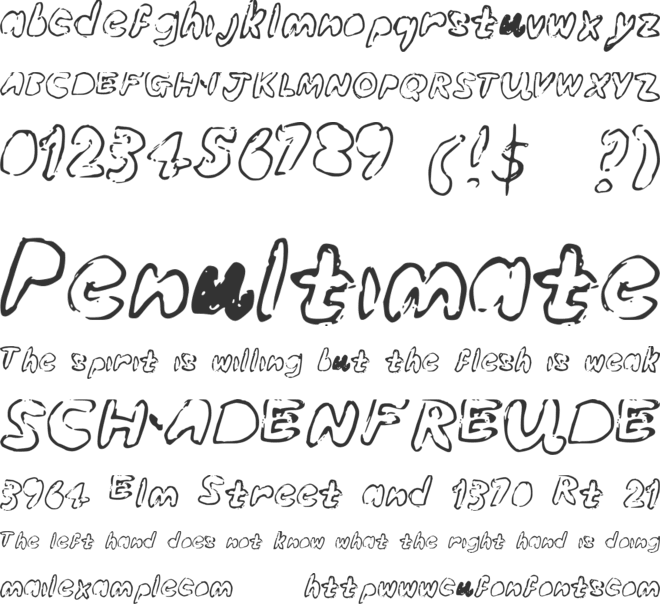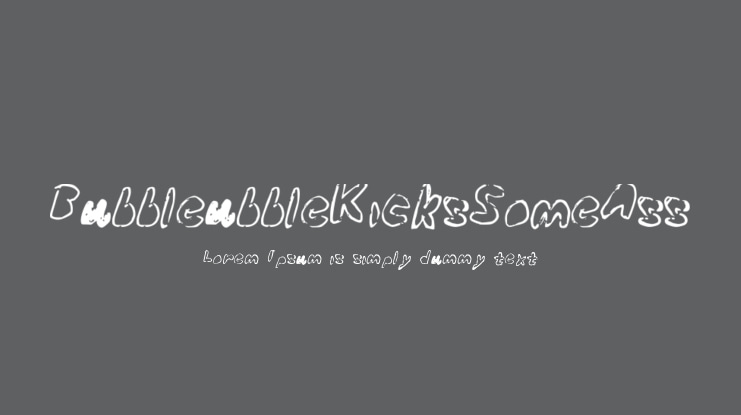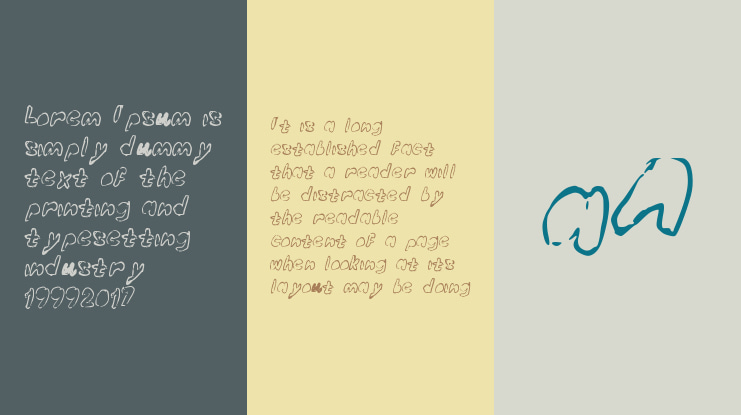
BubbleubbleKicksSomeAss Font
I sort of messed up on writing this one because I used a sort of dinky pen, I'm sorry! Again, with my last font, it's sort of lopsided. I should really start to work on that Anyway, they're bubble letters. Who doesn't find that handy?